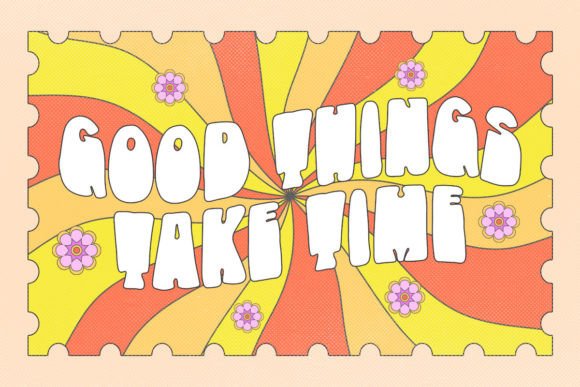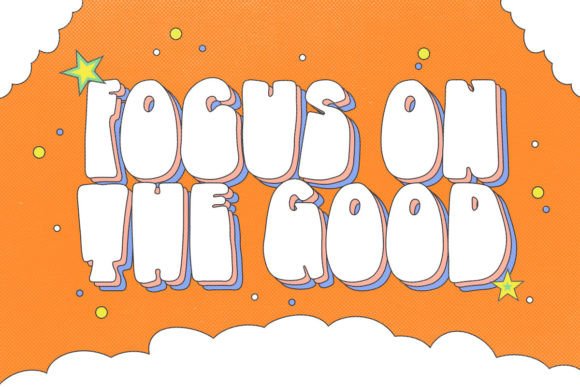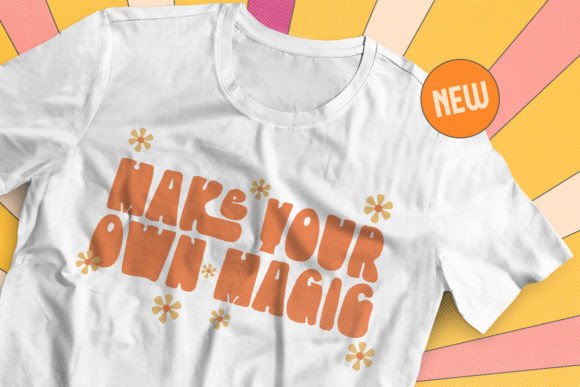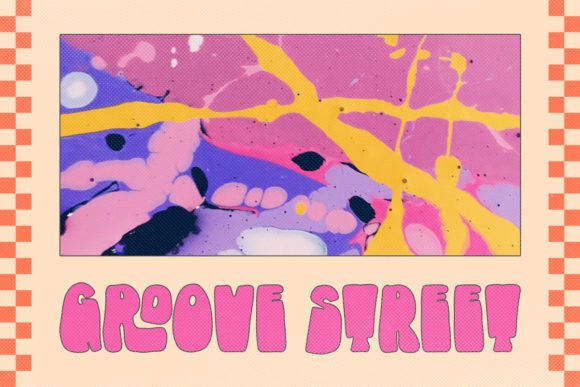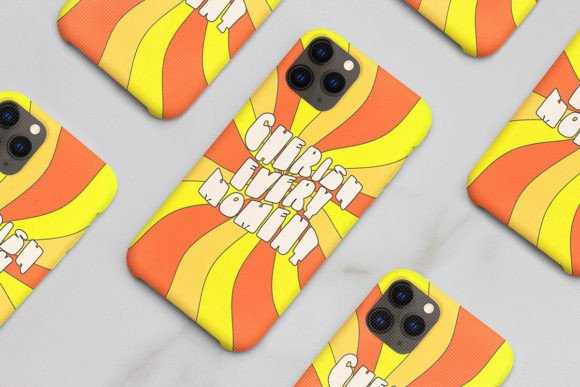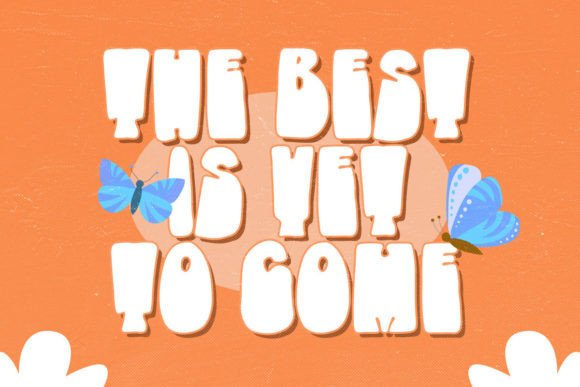
Glimpse of Groovy Font: A Retro Bold Font to Bring You Back to the 60s
Are you a designer or crafter looking for a font that captures the essence of the 1960s? Look no further than the Glimpse of Groovy font. This retro bold font is perfect for adding a groovy accent to your designs, and its hippie vibe is sure to transport you back to a bygone era.
The Inspiration Behind Glimpse of Groovy
The Glimpse of Groovy font is inspired by the iconic typography of the 1960s. During this time, fonts were bold, colorful, and playful, reflecting the era’s carefree and experimental spirit. The font’s creator aimed to capture this essence and bring it to modern designers and crafters.
Key Features of Glimpse of Groovy Font
- Retro Bold Style: Glimpse of Groovy is a bold font that’s perfect for headlines, titles, and statements.
- Hippie Vibe: The font’s unique style is reminiscent of the 1960s hippie movement, making it ideal for designs that require a groovy accent.
- Versatile: Glimpse of Groovy can be used for a wide range of designs, from posters and flyers to digital graphics and crafts.
Why Designers and Crafters Love Glimpse of Groovy
Designers and crafters love Glimpse of Groovy for its unique style and versatility. Here are a few reasons why:
- Adds a Pop of Personality: Glimpse of Groovy adds a touch of personality to any design, making it stand out from the crowd.
- Easy to Read: Despite its bold style, Glimpse of Groovy is easy to read, making it perfect for headlines and titles.
- Customizable: The font can be customized to fit your design needs, from adjusting the size and color to adding effects and textures.
Using Glimpse of Groovy in Your Designs
Glimpse of Groovy can be used in a variety of designs, from digital graphics to crafts. Here are a few ideas to get you started:
- Posters and Flyers: Use Glimpse of Groovy to create eye-catching posters and flyers for events, promotions, and products.
- Digital Graphics: Add a groovy accent to your digital graphics, such as social media posts, blog headers, and email newsletters.
- Crafts: Use Glimpse of Groovy to create unique and personalized crafts, such as handmade cards, scrapbook pages, and DIY decor.
Tips for Getting the Most Out of Glimpse of Groovy
Here are a few tips for getting the most out of Glimpse of Groovy:
- Experiment with Colors: Glimpse of Groovy looks great in bold, bright colors. Experiment with different color combinations to find the perfect fit for your design.
- Play with Texture: Add texture to your design by layering Glimpse of Groovy over a background image or texture.
- Mix and Match Fonts: Combine Glimpse of Groovy with other fonts to create a unique and interesting design.
Glimpse of Groovy is a retro bold font that’s perfect for designers and crafters looking to add a groovy accent to their designs. With its hippie vibe and versatile style, this font is sure to transport you back to the 1960s. Whether you’re creating posters, digital graphics, or crafts, Glimpse of Groovy is a great choice for adding a pop of personality to your designs.